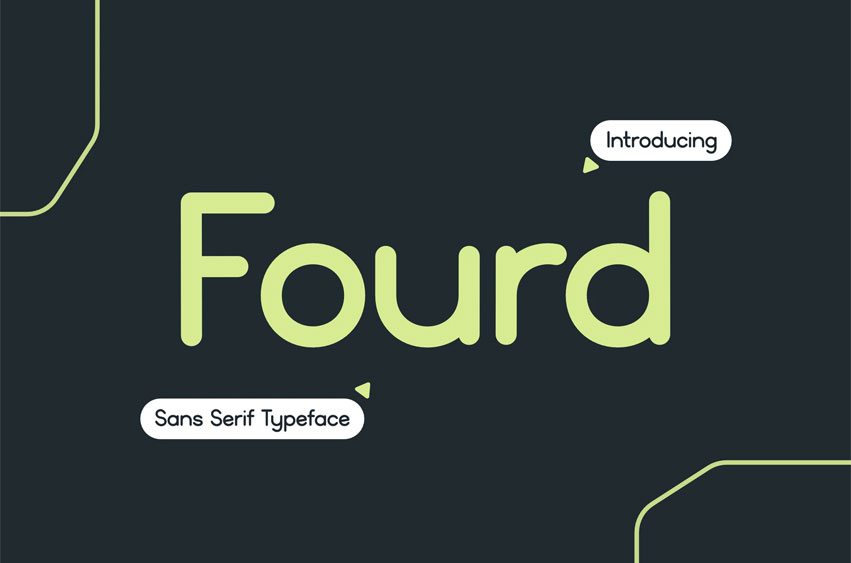
Fourd Font is a modern geometric display typeface designed for contemporary branding and architectural-inspired visuals, featuring clean proportions, rounded geometry, and controlled contrast that deliver clarity with character. Its vibe is calm, confident, and modern—perfectly aligned with urban brands, tech startups, creative studios, and editorial layouts. The letterforms are built on geometric foundations with softened curves, creating a balance between structural precision and visual comfort. Fourd performs exceptionally well across branding systems, posters, social media graphics, packaging, and corporate identities where readability and style must coexist.
Designed for designers who value structure and mood, Fourd supports branding, editorial spreads, poster design, app UI headlines, and modern campaigns that demand focus without noise. Its restrained personality helps communicate trust, intelligence, and professionalism—ideal for brands aiming to feel contemporary, architectural, and intentional. Whether used for logos, Instagram visuals, urban packaging, or presentation decks, Fourd helps designs feel composed, relevant, and visually grounded.
• Modern Geometric Structure Built with consistent proportions and rounded geometry for clean visual rhythm.
• Clear & Confident Readability Optimized for headlines and short texts that must stay sharp across print and digital media.
• Calm Urban Aesthetic Delivers a quiet yet assertive tone suited for architecture, lifestyle, and corporate branding.
• Versatile Design Use Performs reliably in logos, posters, editorial layouts, packaging, social media, and UI headers.
• Basic Latin A–Z and a–z